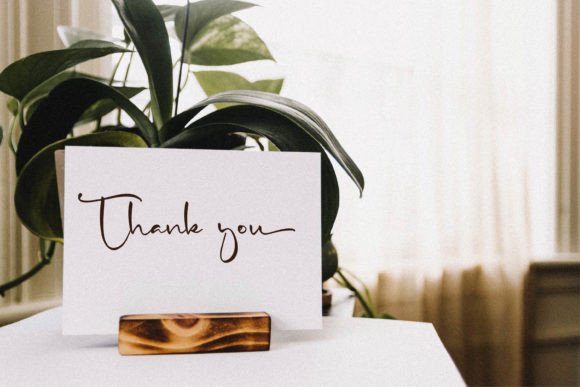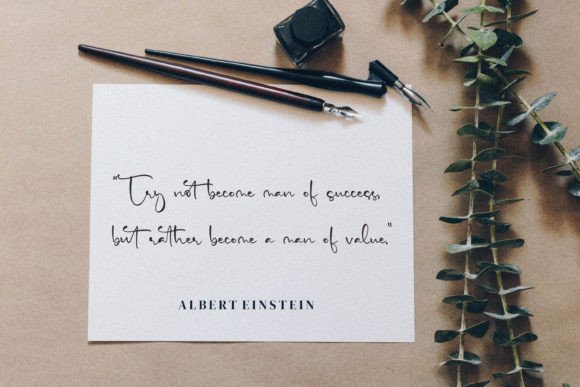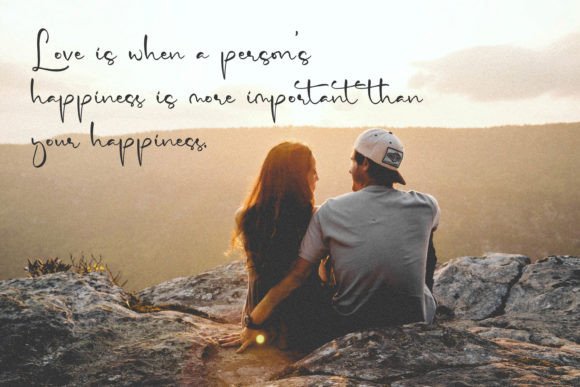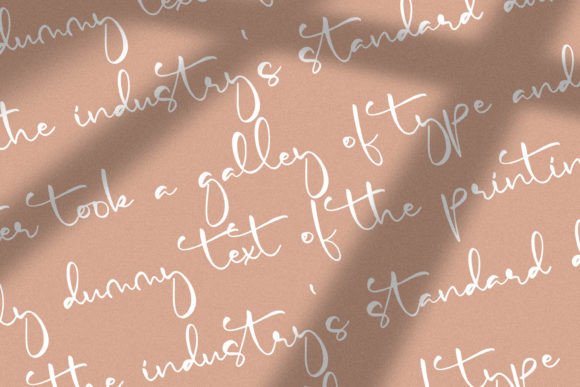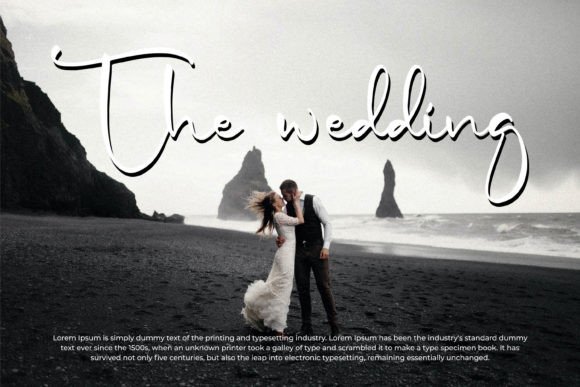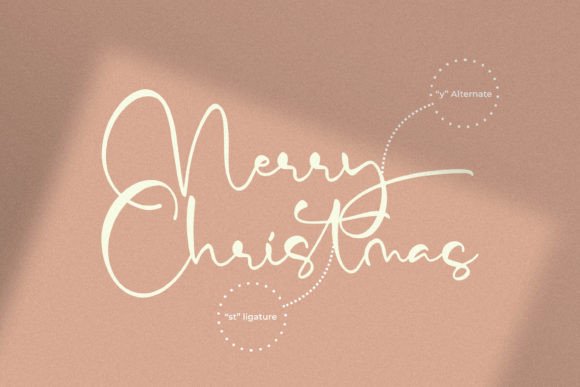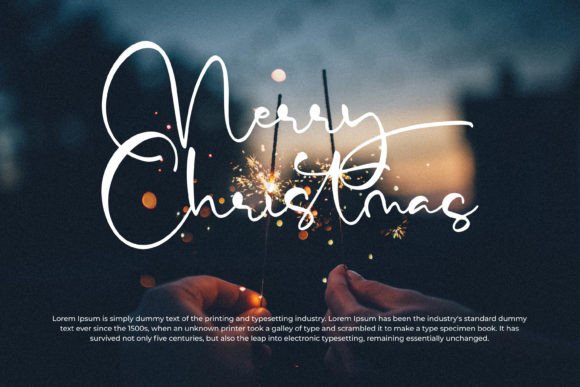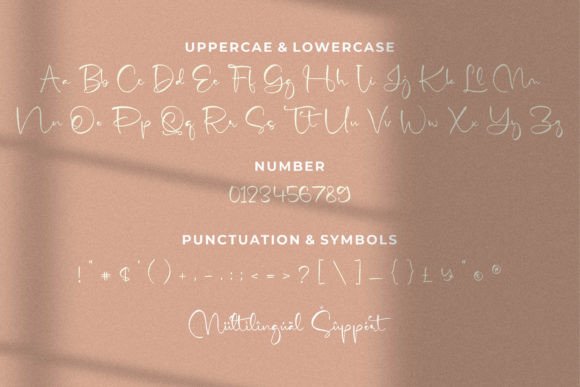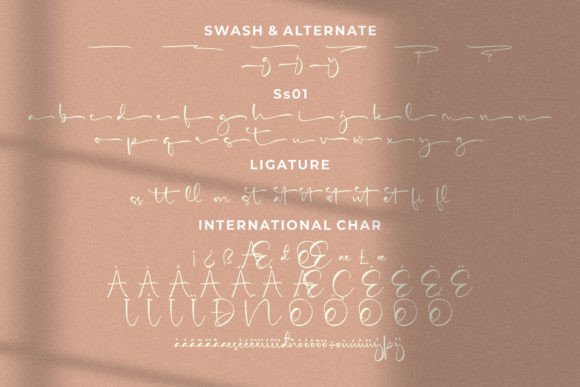
Mytchell Trujillo Font
Mytchell Trujillo Font Download – Dazzling Elegant Script Typeface
The Mytchell Trujillo Font download is a dazzling script designed to add elegance and style to your projects. With its carefully crafted strokes and detailed design, this typeface brings sophistication and charm to both personal and professional creations. Because of its adaptability, it is a valuable addition to any font library.
Dazzling and Elegant Script Style
Mytchell Trujillo features clean curves and refined details that make it look polished. As a result, it enhances designs with beauty and precision. In addition, its graceful flow ensures that projects feel unique and stylish.
Wedding invitations, thank-you notes, and greeting cards come to life with this font. It gives your text a personal and elegant tone, making messages feel memorable. Therefore, it is an excellent option for stationery projects.
Mytchell Trujillo Font Download for Posters and Logos
The Mytchell Trujillo Font download also works beautifully for posters, logos, and branding campaigns. Its sophisticated strokes help businesses appear professional while staying approachable.
Versatility Across Creative Projects
From digital banners and t-shirts to magazines and DIY crafts, this font adapts seamlessly. In addition, its high-quality design ensures it performs well in both print and digital formats.
Readability and Professional Balance
Some script fonts focus on decoration but lack clarity. However, Mytchell Trujillo achieves balance by maintaining both readability and elegance. As a result, it works well in large titles and detailed text alike.
Why Add This Script Typeface to Your Collection?
The Mytchell TrujilloFont download is stylish, versatile, and easy to use. In other words, it suits creative invitations, posters, logos, and branding projects. Finally, it is a script font that brings detail, sophistication, and charm to every design.